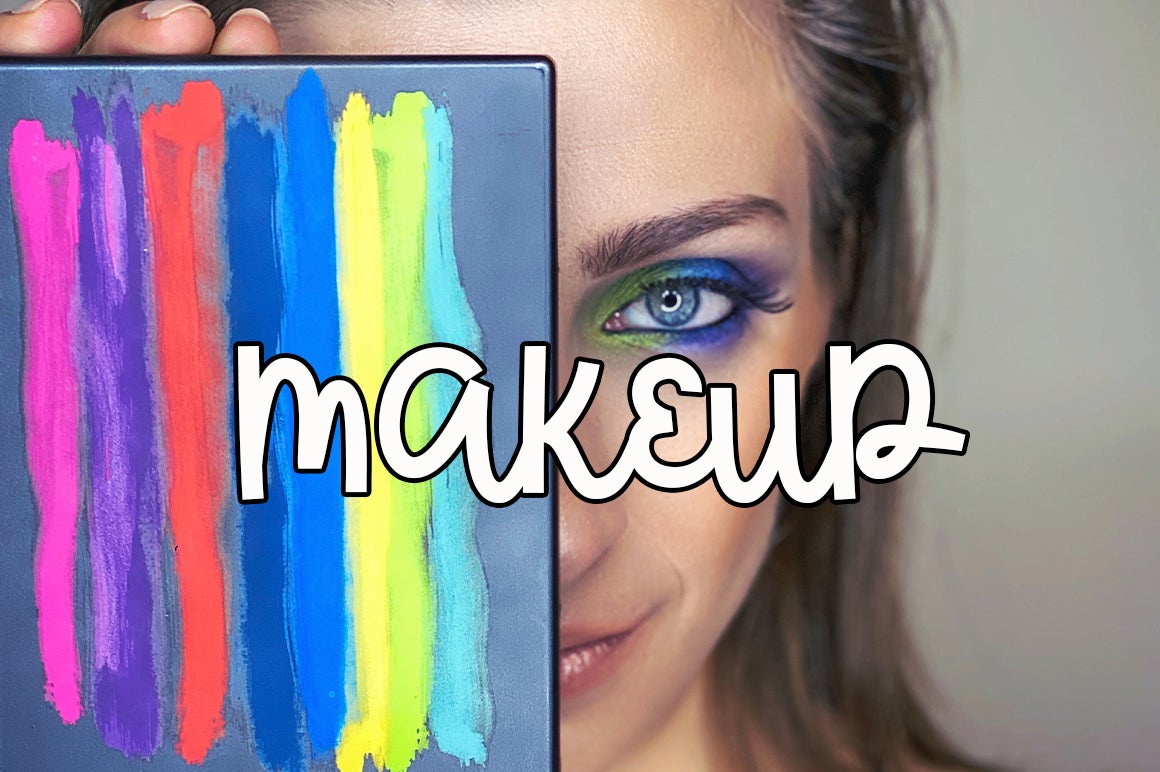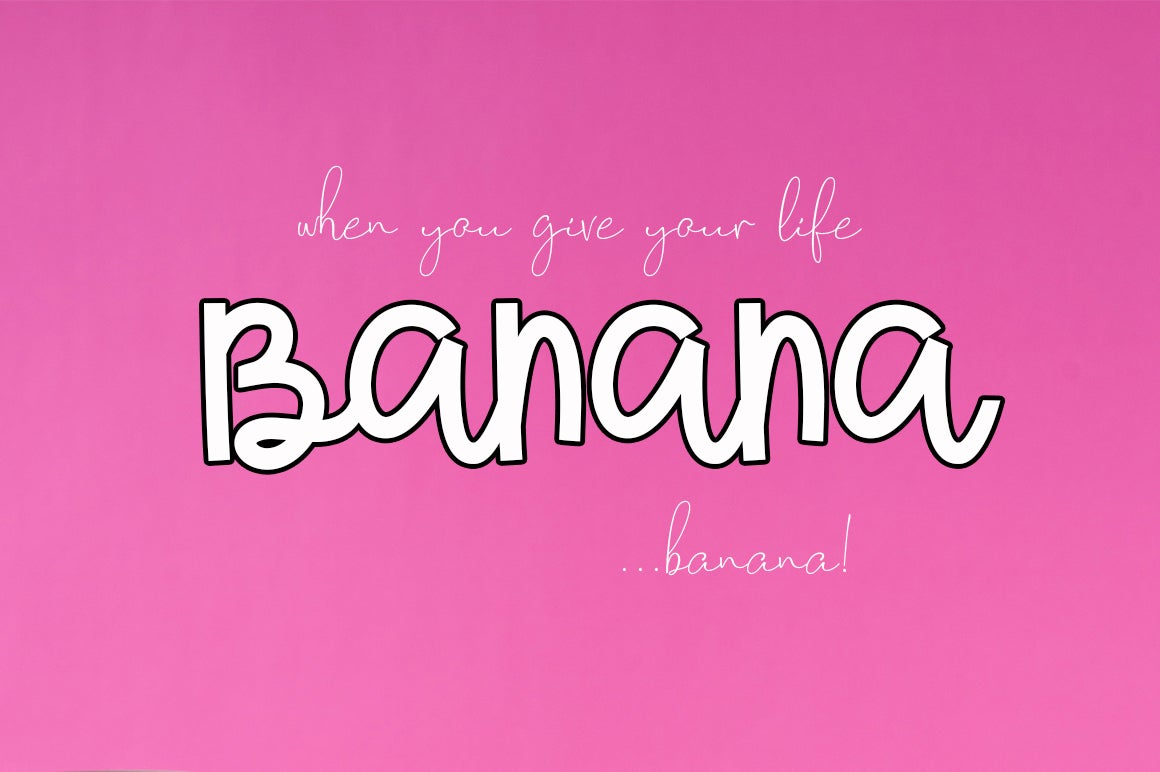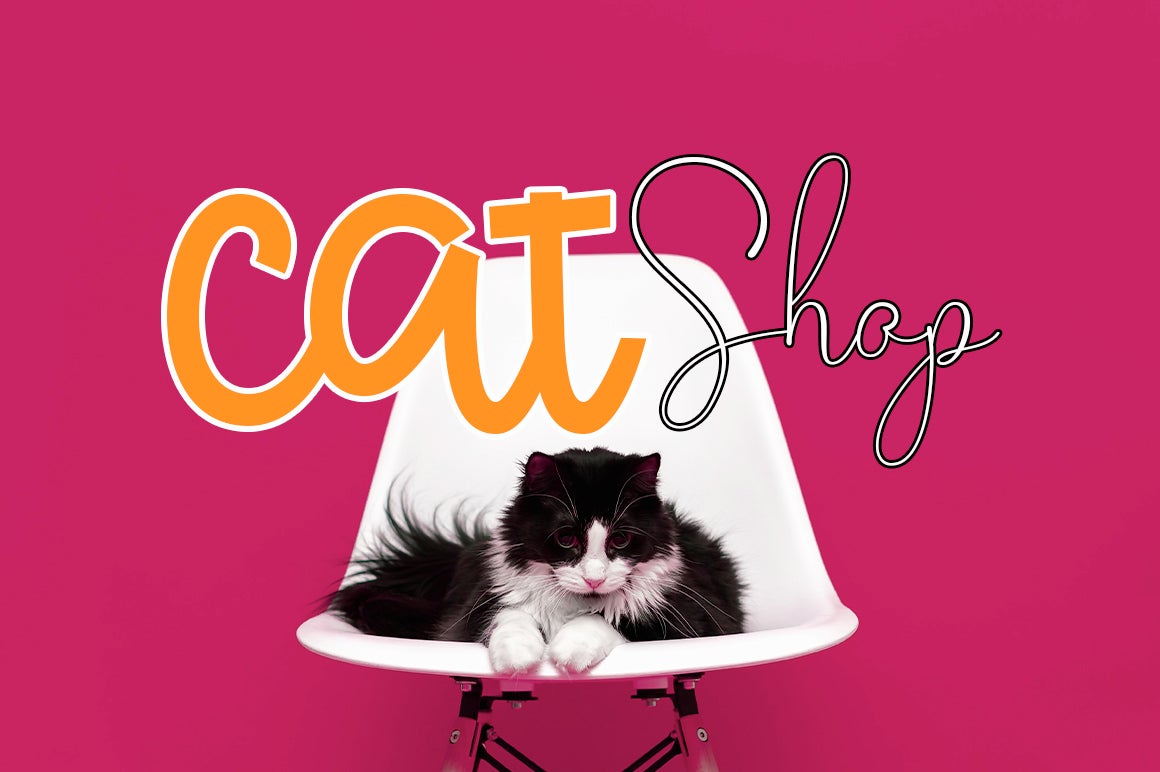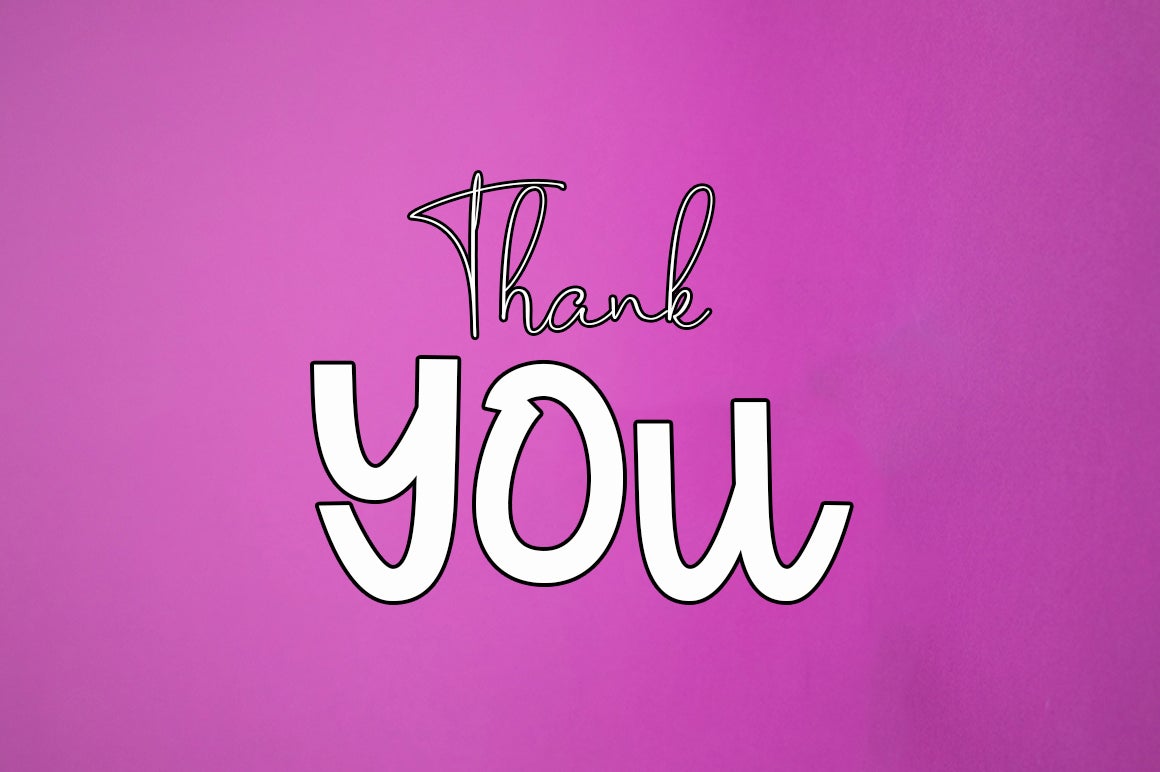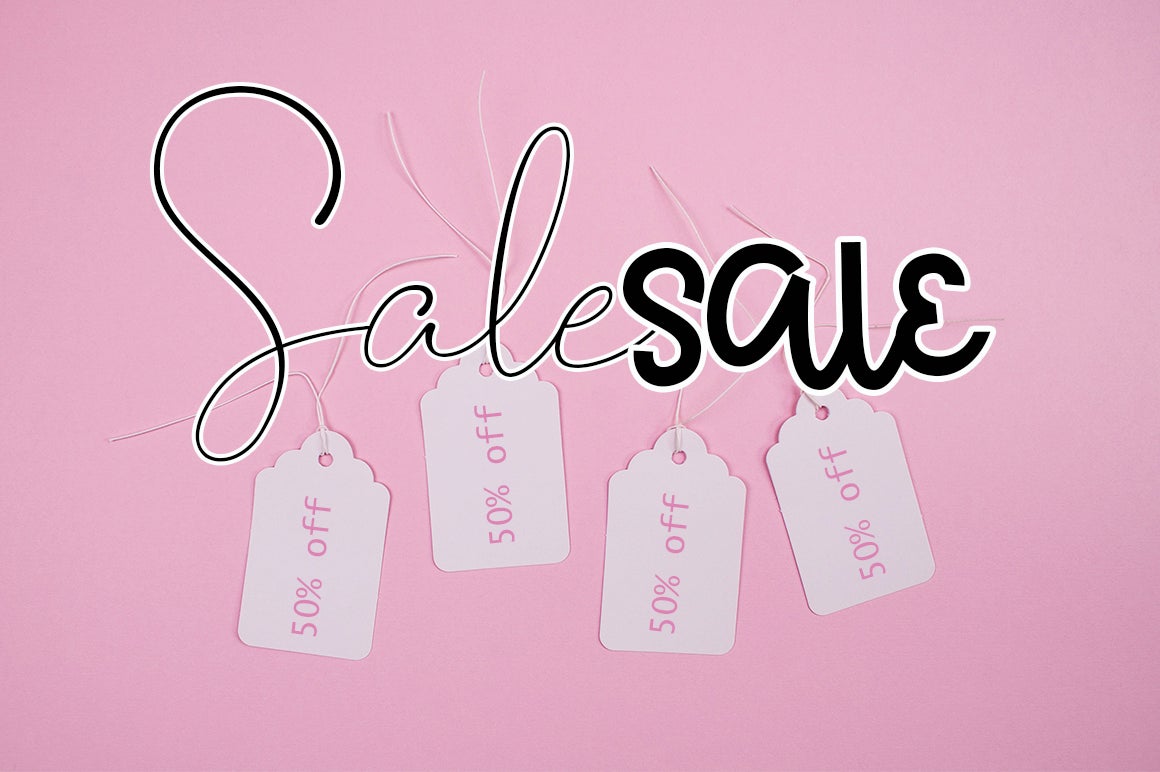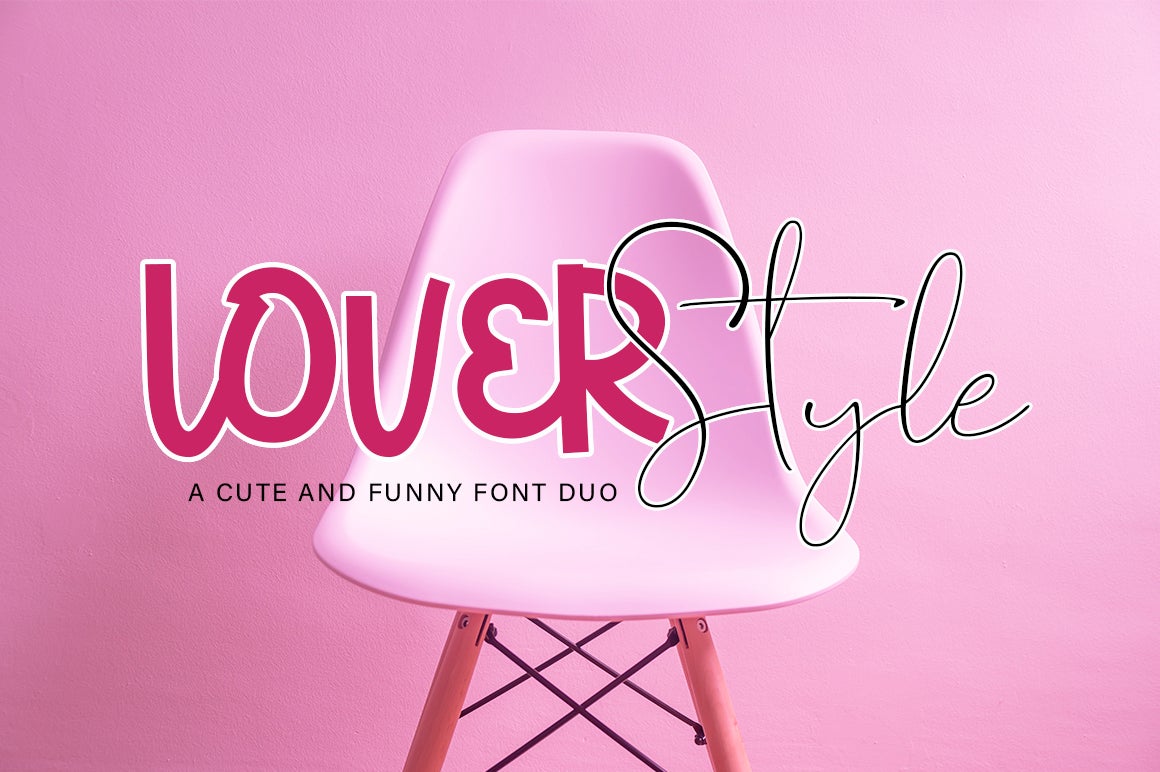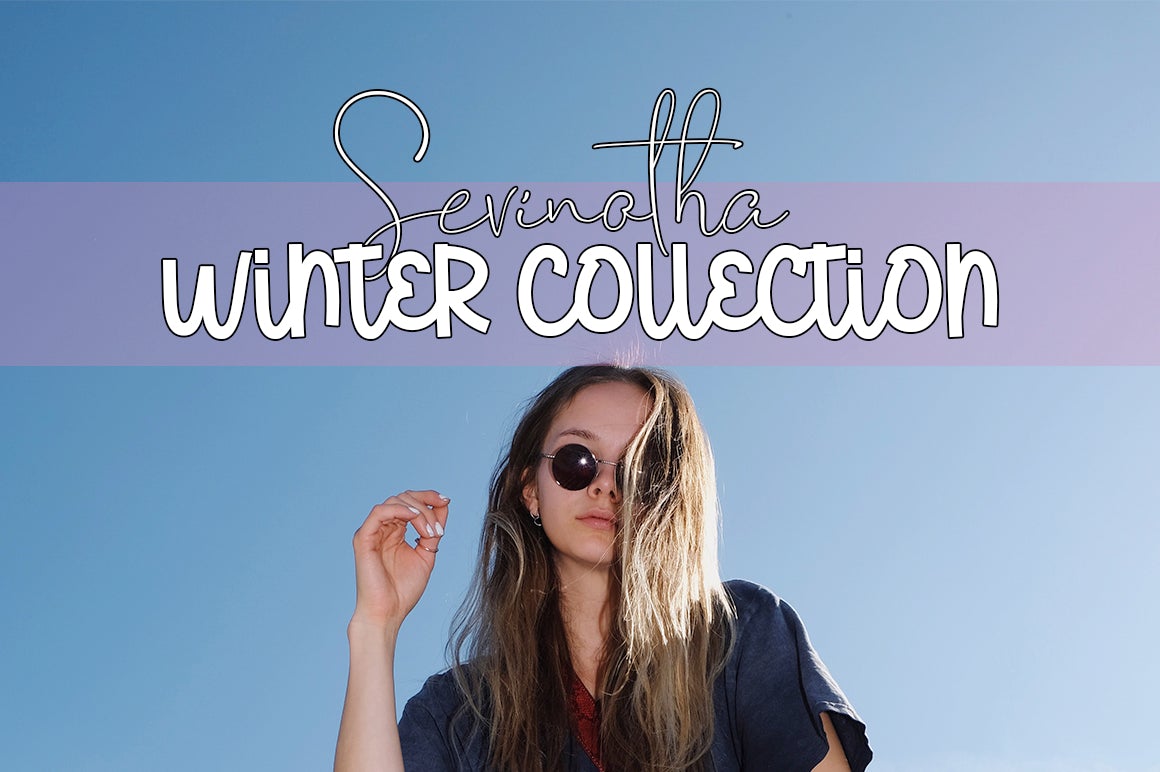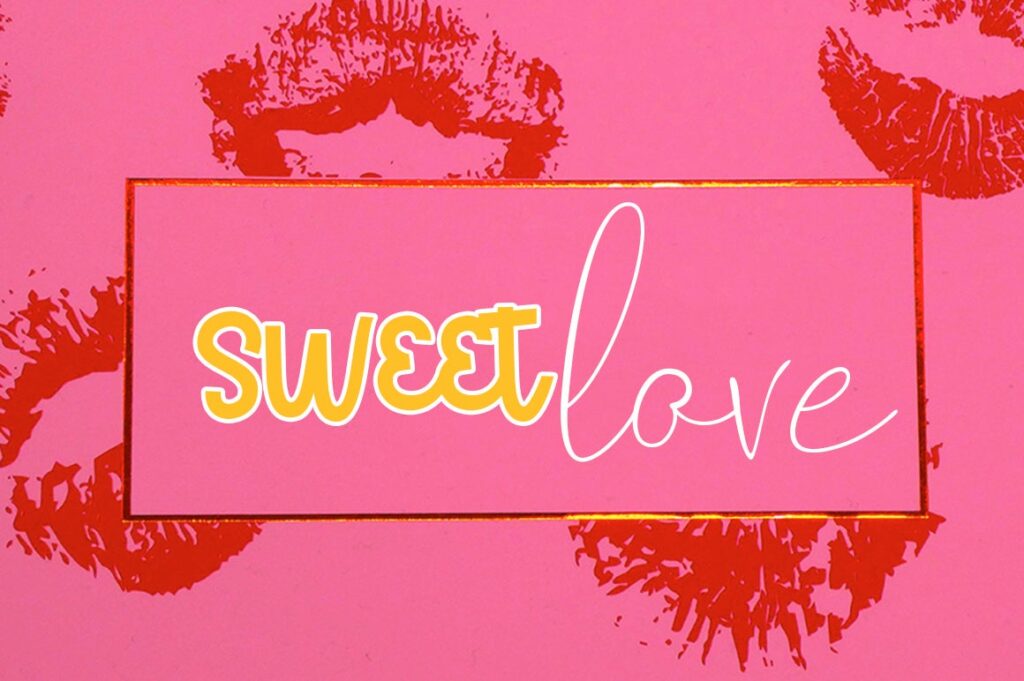
Lover Style
About Lover Style
Lover Style is a cute and jolly duo styled font (display and script). This font is PUA encoded which means you can access all of the glyphs and swashes with ease! Fall in love with its incredibly versatile style and use it to create spectacular designs!